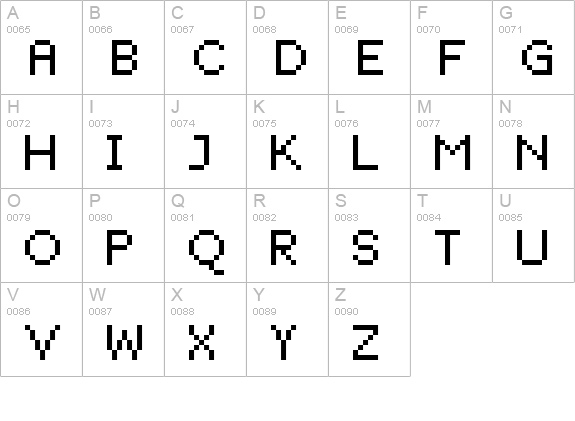
The FFF Neostandard Trial font is a modern and sleek typeface that exudes sophistication and elegance. Its clean lines and balanced proportions make it perfect for a wide range of design projects, from branding and advertising to editorial and web design. The font features a contemporary twist on classic letterforms, giving it a timeless appeal that is sure to stand out. The best part? FFF Neostandard Trial is available for free download at FontsMarket.com, making it accessible to designers and creatives looking to elevate their work with a high-quality typeface without breaking the bank. With its versatility and stylish aesthetic, this font is a must-have addition to any designer's toolkit. Download FFF Neostandard Trial today and take your designs to the next level!